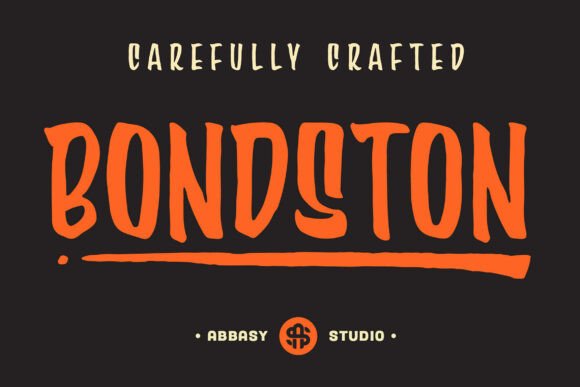
The Power of Bondston: Unleashing a Bold and Confident Font
I still remember the struggle of working on a branding project for a new startup, only to find myself stuck on the perfect font. My client wanted something bold, confident, and attention-grabbing, but everything I tried seemed to fall flat. That was until I stumbled upon Bondston, a typeface that instantly caught my eye with its unique, strong, and bold appearance. In this article, I’ll share my experience with Bondston, its features, and how to make the most of it in your design projects.
An Honest Review of Bondston
What I Love About Bondston ✨
- ✅ Unique and distinctive look: Bondston’s bold and confident appearance makes it perfect for classic branding projects that require a strong feel.
- ✅ Attention-grabbing: This font is sure to turn heads, whether you’re designing packaging or a logo.
- ✅ Versatile: Bondston works well for businesses that appeal to a younger or more creative audience.
- ⚠️ Limited use in body text: Bondston’s bold appearance makes it less suitable for long blocks of text.
- ⚠️ May not work well in small sizes: The font’s bold lines and unique features may become lost in smaller sizes.
The Backstory of Bondston
Bondston was designed with the intention of creating a bold and confident font that would make a statement. Its unique look is inspired by classic typography, with a modern twist to make it more versatile and attention-grabbing. While the true story behind Bondston’s creation may be unknown, its impact on the design world is undeniable.
Q: What makes Bondston unique? 🤔
A: Bondston’s unique look is characterized by its bold and confident appearance, making it perfect for classic branding projects that require a strong feel.
Q: Is Bondston suitable for body text? 📝
A: While Bondston can be used for body text, its bold appearance makes it less suitable for long blocks of text. It’s best used for headlines, titles, and short paragraphs.